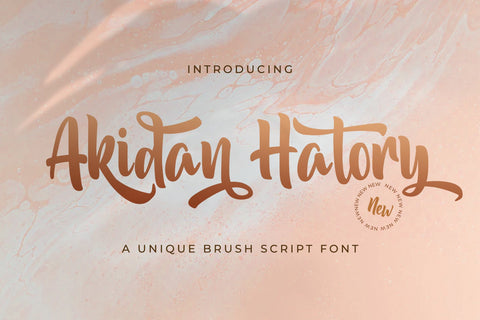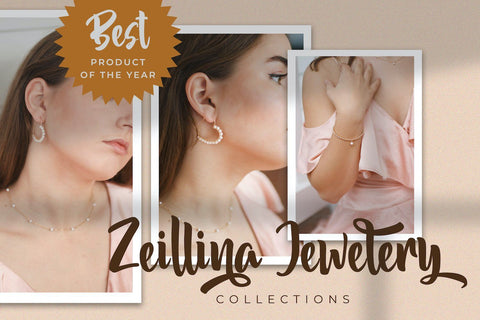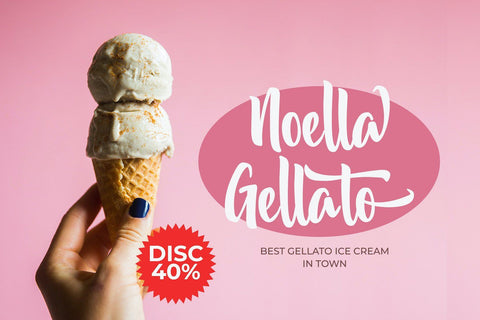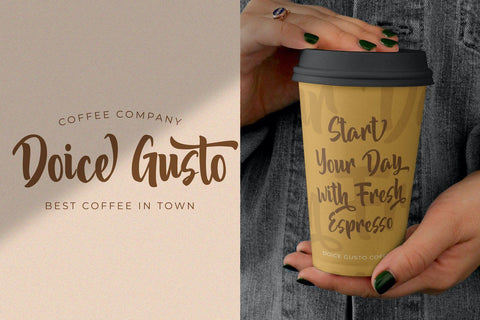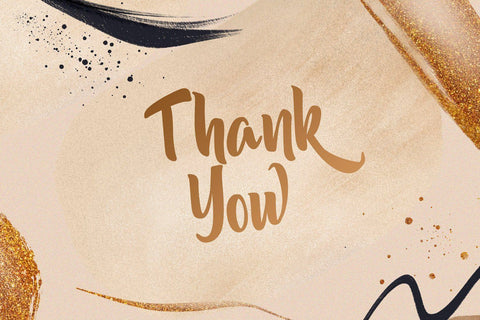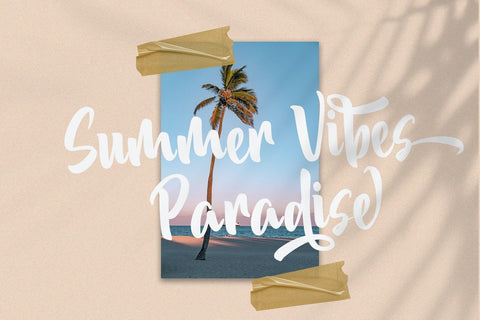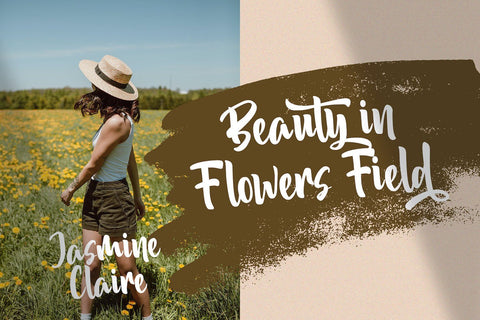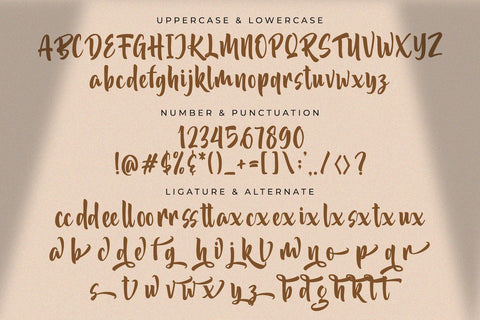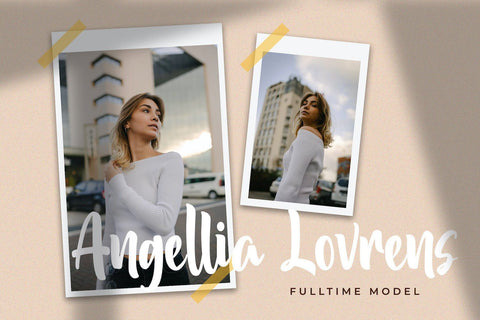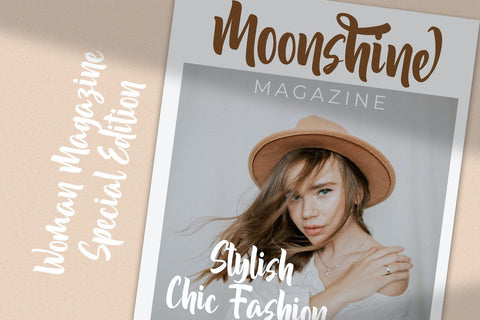
Akidan Hatory - Bold Script Font
Introducing Akidan Hatory - Bold Script Font
Akidan Hatory is a strong and bold script font. It is curved, rounded, and has an unique vintage style, that is perfect for branding. Add it to your most creative ideas and notice how it makes them come alive!
- Stylistic Alternates